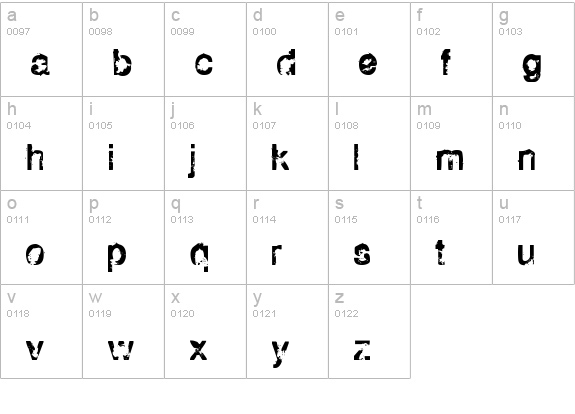
Introducing Horse Puke font: a unique and quirky typeface that is sure to make your design projects stand out! This font features bold and playful characters, perfect for adding a touch of whimsy to your creations. Whether you're working on a poster, logo, or branding project, Horse Puke font is sure to make a statement. Best of all, Horse Puke font is available for free download at FontsMarket.com. Simply visit the website and download this fun and eye-catching font today to add a touch of personality to your designs. Don't miss out on the opportunity to enhance your projects with this playful and free font option!